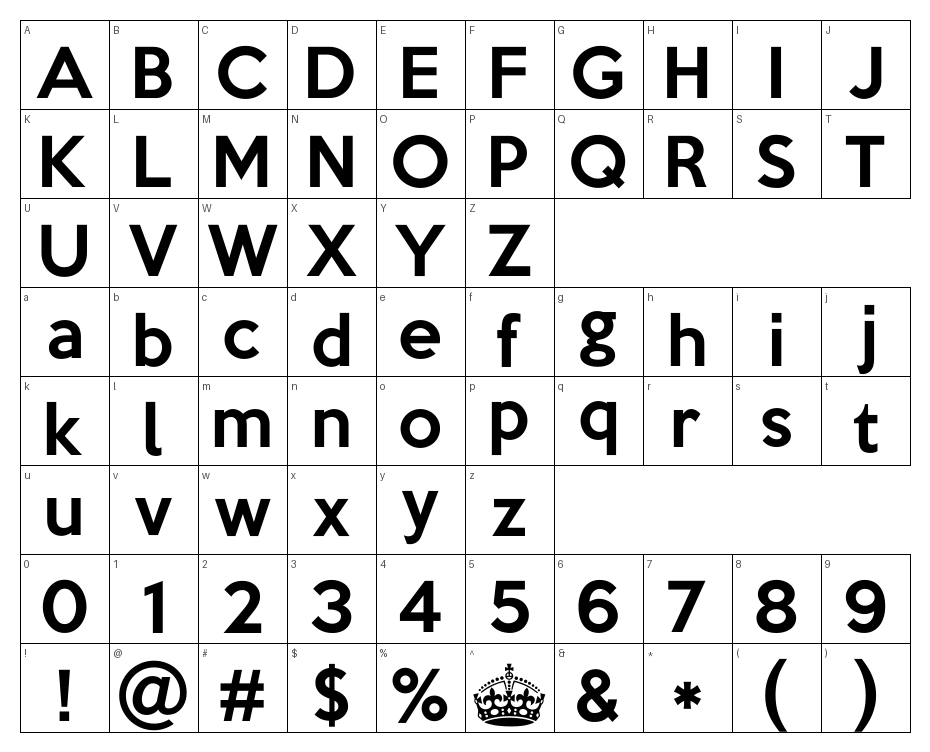
Keep Calm is a family of fonts developed from the now famous World War 2 poster that was designed in 1939 but never issued, then rediscovered in 2000. As well as the original Keep Calm font, the Medium weight of the poster which can be downloaded free for personal use, three new weights are available from K-Type – Book (regular), Heavy and Light – and each comes with a complimentary Italic.
Nome da fonte: Keep Calm
Nome do designer: K-Type